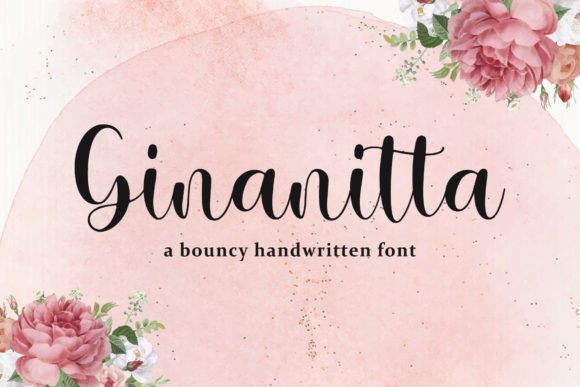
Prepare yourself to be captivated by Ginanitta, a script font that masterfully blends the allure of traditional calligraphy with a contemporary touch, exuding sophistication and elegance in every letterform. This exquisite font has been meticulously crafted to mirror the beauty of classic handwritten calligraphy, evoking a sense of timeless romance and individuality.
With Ginanitta, you'll discover a treasure trove of creative possibilities. Its delicate strokes and graceful curves dance across the page like a ballerina, adding a touch of whimsy and charm to any design. Unleash your imagination and create breathtaking wedding invitations, logos that speak volumes, websites that captivate, and calligraphic quotes that inspire the soul.
Dive into the world of Ginanitta and immerse yourself in a symphony of letterforms. Explore the array of alternative glyphs for each letter, allowing you to craft designs that mimic the personal touch of traditional handwritten calligraphy. The versatility of Ginanitta knows no bounds; it effortlessly adapts to a myriad of design styles, adding a unique flair to every project you undertake.
Indulge in the allure of Ginanitta and elevate your designs to new heights of sophistication and elegance. Whether you're a seasoned designer or just starting your creative journey, Ginanitta will be your steadfast companion, guiding you towards design excellence. Embrace the timeless beauty of handwritten calligraphy and let Ginanitta transform your creative visions into stunning realities.
Embrace the allure of Ginanitta and step into a realm of creative freedom. Unleash the boundless potential of its sophisticated letterforms and elevate your designs to new heights of elegance and sophistication. Let Ginanitta be your muse, guiding you towards design excellence and leaving a lasting impression on all who encounter your creations.